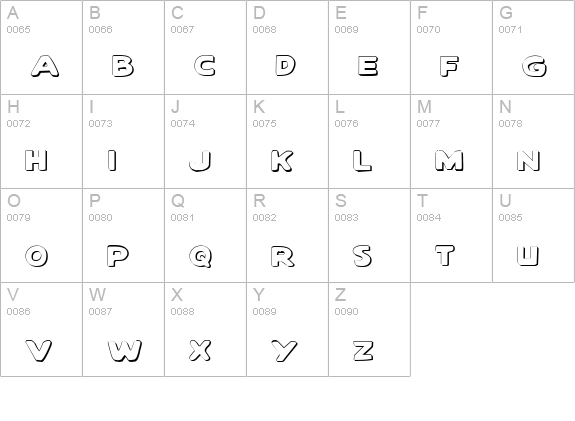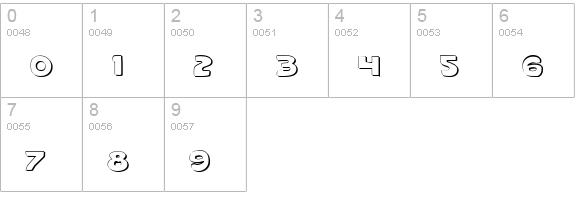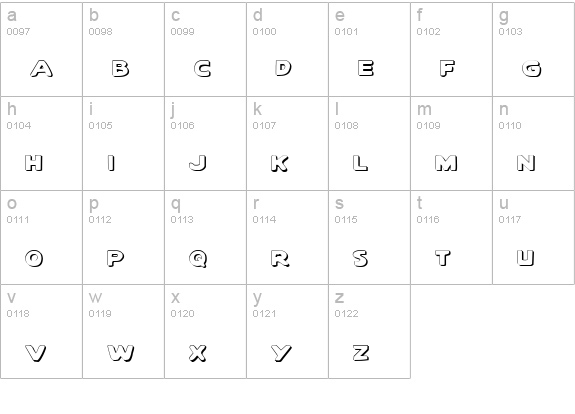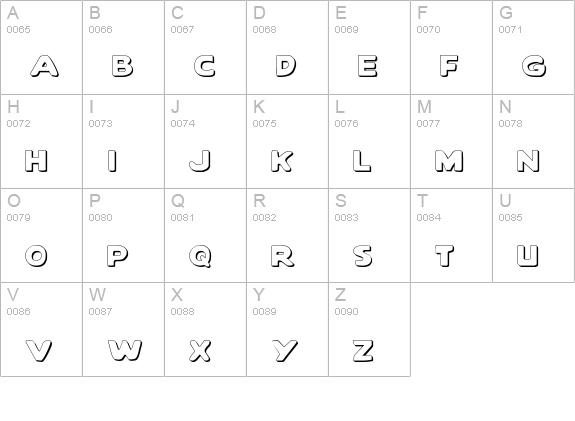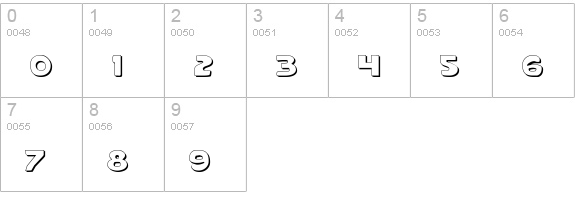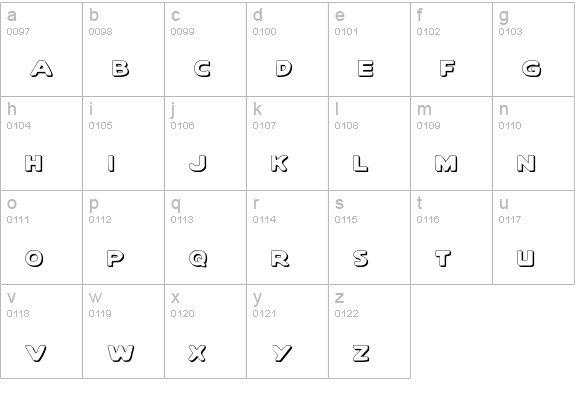
Quartermain Outline Font Details
Quartermain Outline is a captivating and stylish font that exudes a sense of sophistication and elegance. With its sleek and refined lines, this font is perfect for adding a touch of class to any design project. The clean and structured letterforms of Quartermain Outline make it highly legible, ensuring that your message is conveyed with clarity and precision. This font is a wonderful choice for a variety of applications, from branding and logo design to headlines and display typography. Its versatility allows it to effortlessly adapt to any design concept or theme, making it a valuable asset for both professional designers and amateurs alike. One of the most appealing aspects of Quartermain Outline is that it is absolutely free. That's right, you can download and use this font without any cost. It is freely available for download at FontsMarket.com, a reliable source for high-quality fonts. This means that you can enhance your design projects with Quartermain Outline without breaking the bank. Whether you're working on a corporate presentation, a wedding invitation, or a fashion magazine, Quartermain Outline is sure to elevate your design to new heights. Its timeless appeal and modern aesthetic make it a must-have font for anyone looking to make a lasting impression. So why wait? Go ahead and download Quartermain Outline from FontsMarket.com today and unlock the potential of this exceptional font. With its free availability and impeccable design, Quartermain Outline is the perfect addition to your font collection.